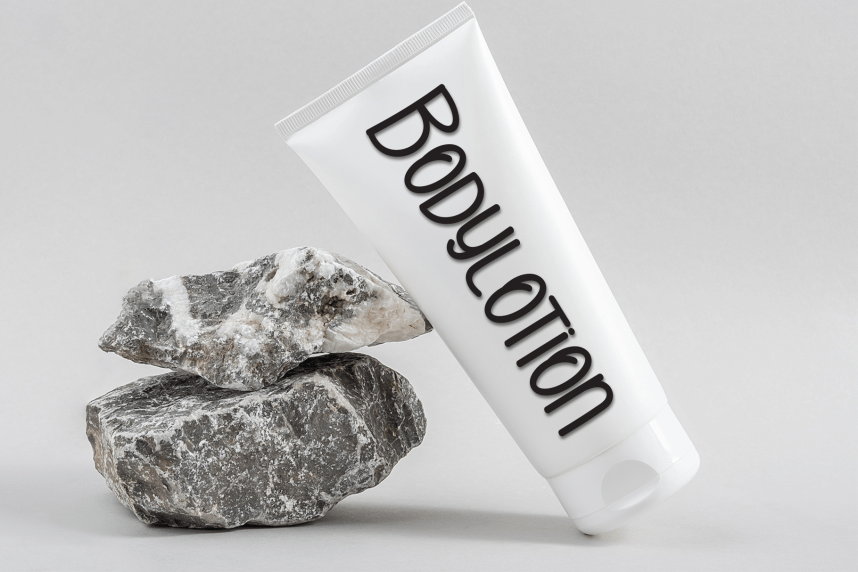
Mothers Holiday Handmade Font
Mothers Holiday Handmade Font is a sweet and friendly handwritten display font. Cute and fun, this font is ideal for writing wedding invitations, cards, or any other design that might need a playful touch!